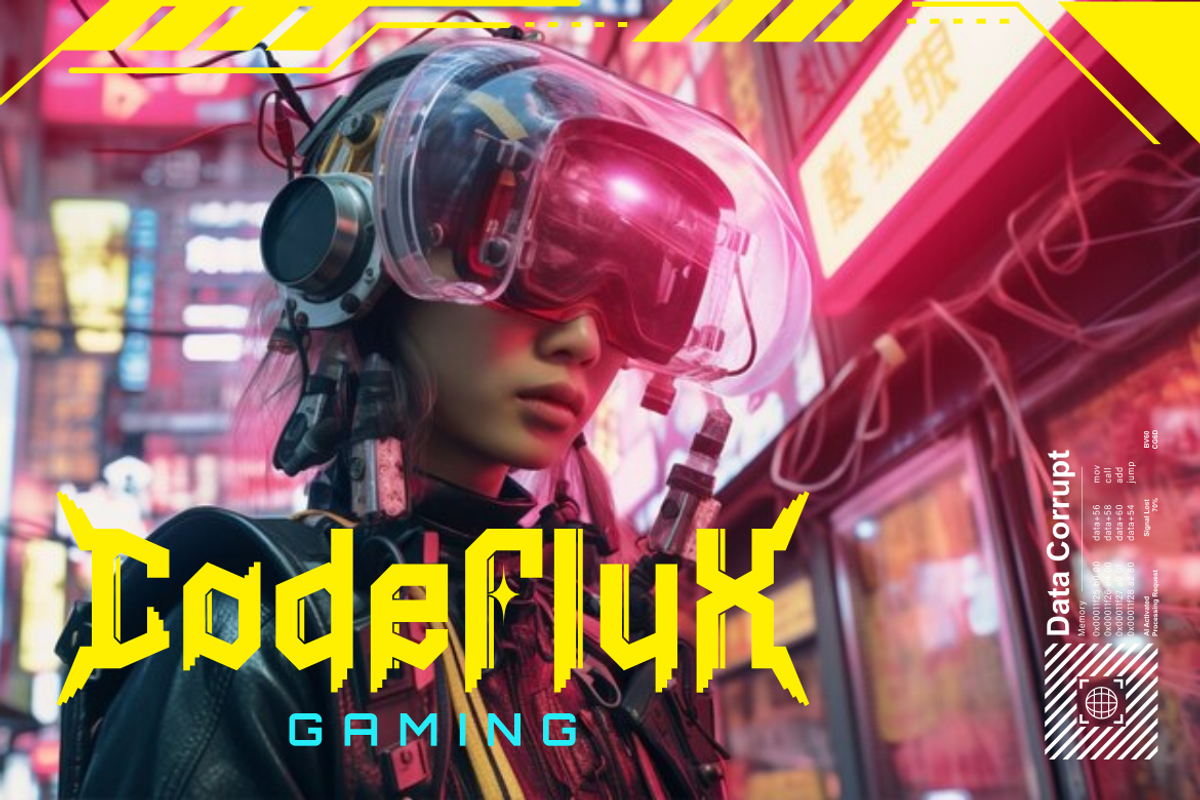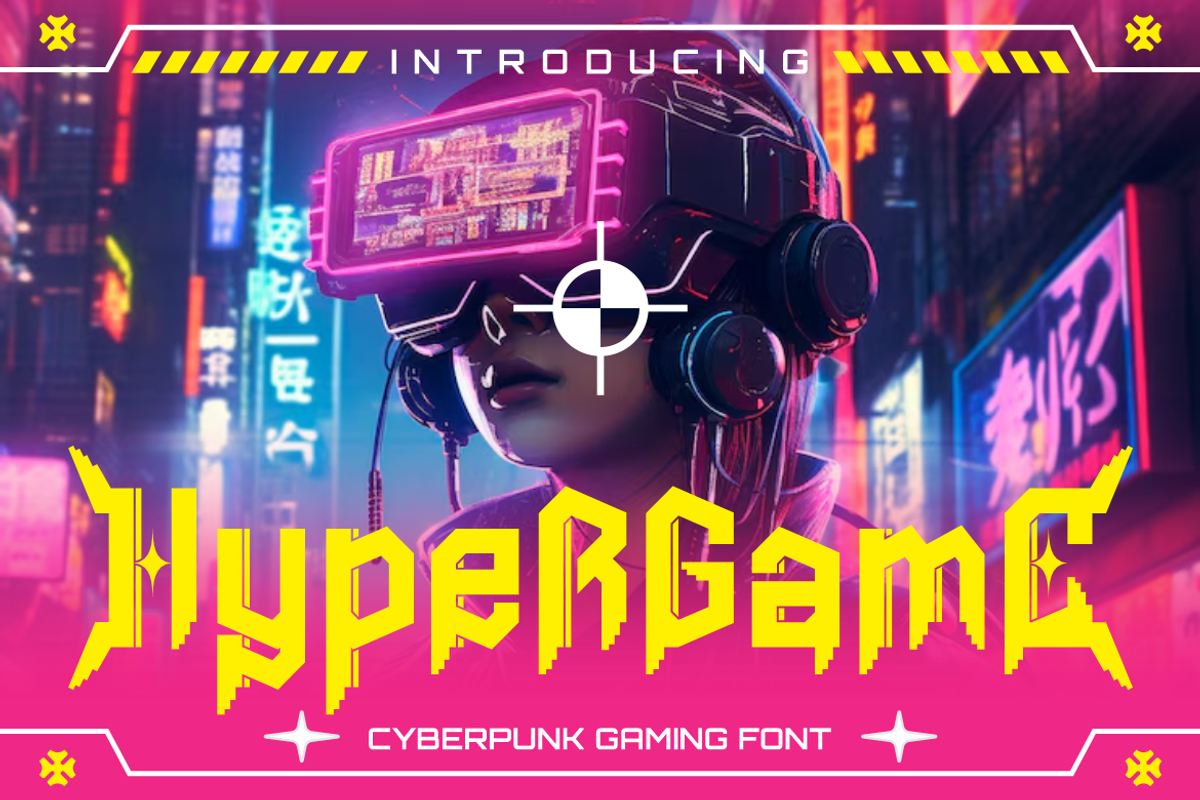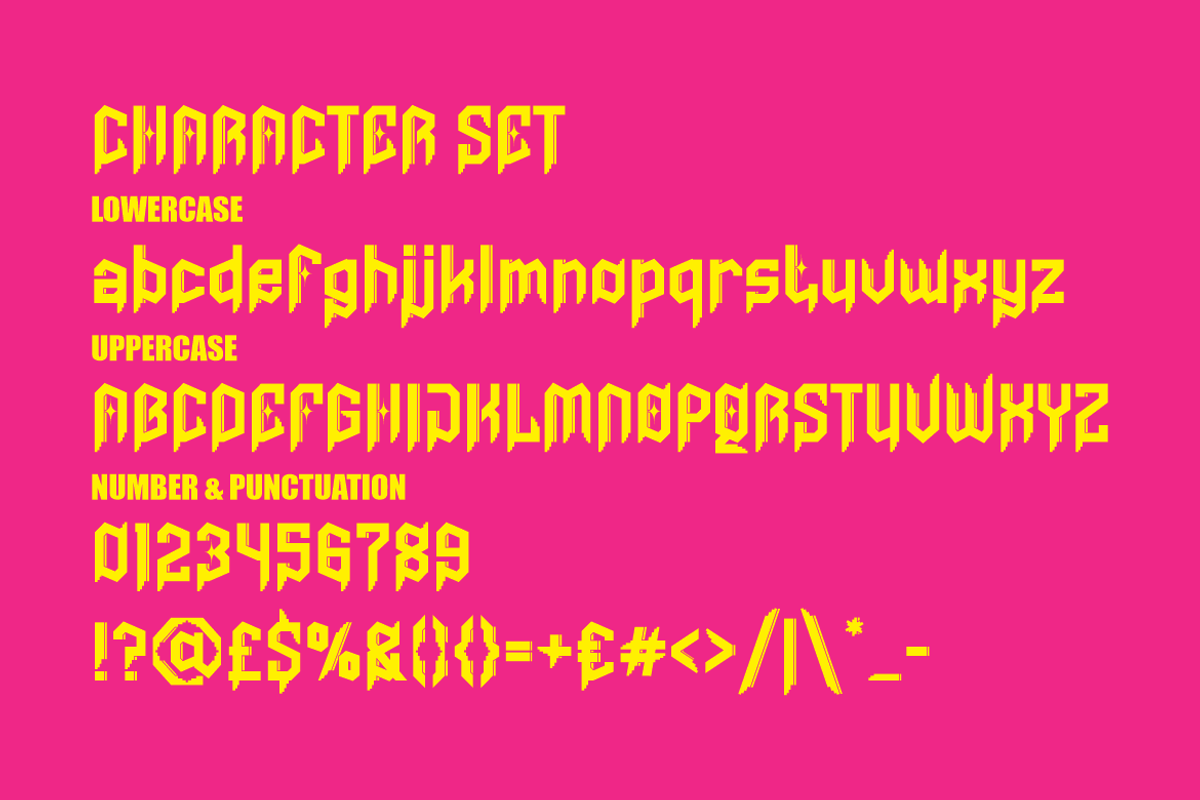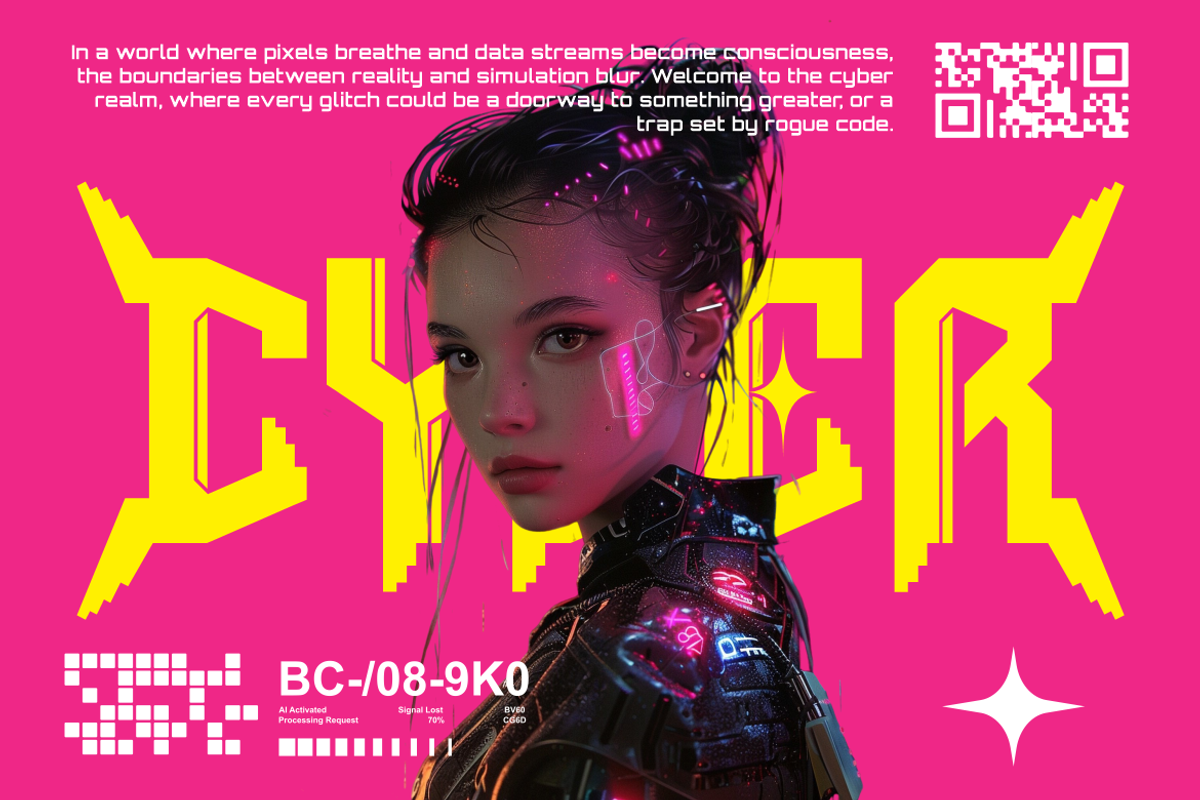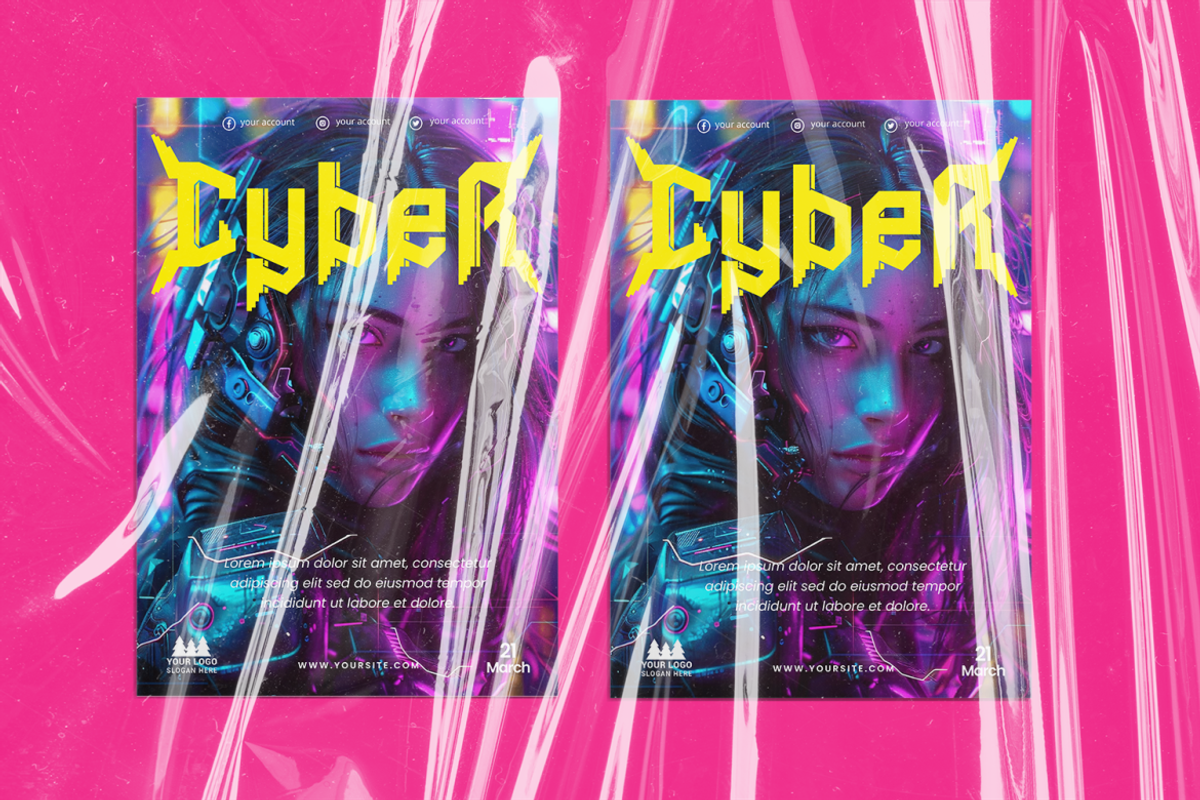
Hypergame Cyberpunk Gaming Font
Step into a high-octane realm of neon lights and rogue data with Hypergame Cyberpunk Gaming Font — a groundbreaking typeface that fuses digital grit with rebellious design. Its characters are engineered with sharp, pixel-like cuts and glitch-inspired edges, invoking the immersive spirit of gaming, sci-fi, and cyber-themed media. The font’s blocky yet angular forms capture the essence of 8-bit aesthetics while pushing into a sharper, high-tech evolution. Every glyph echoes the visual language of electronic disruption, making it perfect for headlines that demand presence and titles that spark curiosity.
From VR game branding to synthwave album covers, Hypergame amplifies every visual with its bold, energetic presence. The yellow-on-magenta contrast in its previews radiates retro-futuristic attitude — backed by a complete character set including uppercase, lowercase, numerals, and full punctuation. This font is your weapon of choice for futuristic logos, dystopian movie posters, cyberpunk sticker packs, or even collectible card packaging. With its versatile use cases across digital and print media, Hypergame guarantees to turn every layout into a scene from tomorrow’s rebellion.